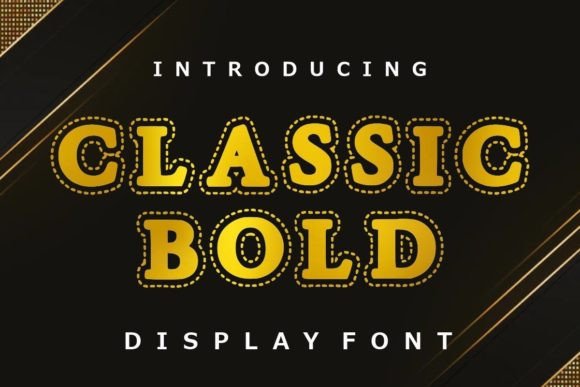
Welcome to the world of Classic Bold Font, an exquisite display font with a touch of retro and vintage allure. This captivating font, masterfully designed by Infinity Art Studio, is the epitome of elegance and sophistication. With its bold and distinct strokes, Classic Bold is the ideal choice for those seeking to make a striking and unforgettable impact in their design projects.
Unleash your imagination and embark on a typographic journey with Classic Bold. From captivating headlines that command attention to bold sporting event posters that ignite excitement, this font will elevate your designs to new heights. Let your creativity flourish as you explore the endless possibilities of Classic Bold, transforming ordinary words into visually striking masterpieces.
Express your individuality and style with Classic Bold's dynamic and versatile nature. Whether you're designing posters that demand attention, crafting logos that embody your brand's essence, or creating monogrammed designs that exude elegance, this font will effortlessly enhance your designs, leaving a lasting impression on all who encounter it.
Immerse yourself in the timeless beauty of Classic Bold. Its vintage charm adds a touch of nostalgia and authenticity to your projects, while its modern appeal ensures that your designs remain relevant and captivating. Experience the allure of a bygone era while embracing the contemporary design sensibilities that make Classic Bold a truly extraordinary font.